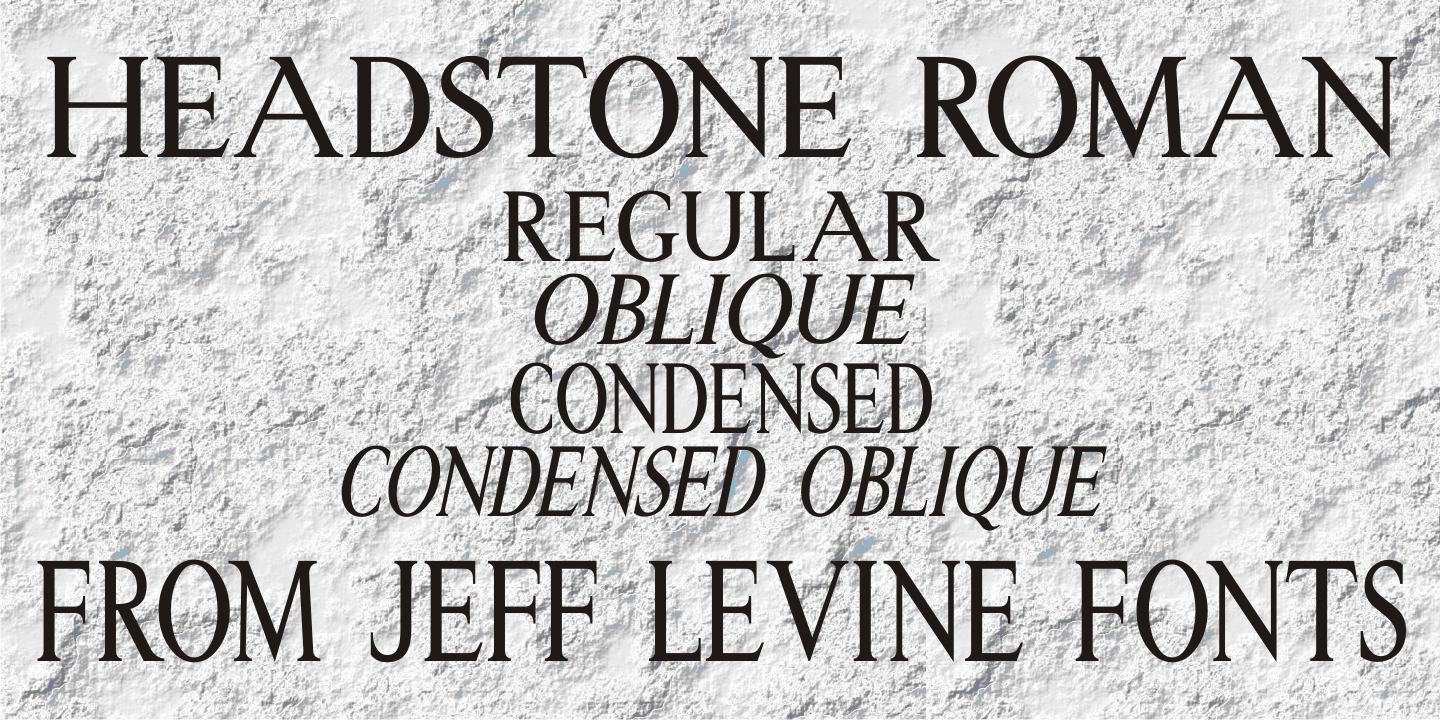
Headstone Roman
Despite its macabre-sounding name, Headstone Roman JNL is not a novelty font for Halloween or horror movies.  Instead, it’s an attractive Roman typeface based on an example provided of a guide for stone cutters to use when cutting epitaphs into tombstones.
Headstone Roman JNL is available in regular, oblique, condensed and condensed oblique versions.